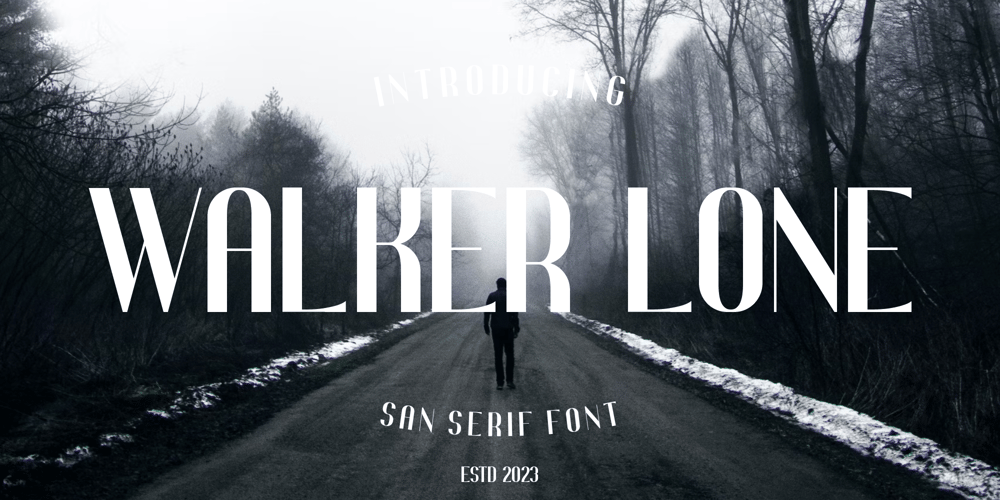
Walker Lone
Walker Lone font
Walker Lone Font Family was designed by Hunaiza Aljahsy and published by HunaizaAljahsy. Walker Lone contains 1 styles and family package options. WALKER LONE is a bold modern display font with sans serif style. It’s modern and classic font with a unique and deference look . Perfect if you need a dose of fun in your project. Perfect for editorial projects, Logo design, web font, clothing branding, product packaging, magazine headers, or simply as a stylish text overlay to any background image.